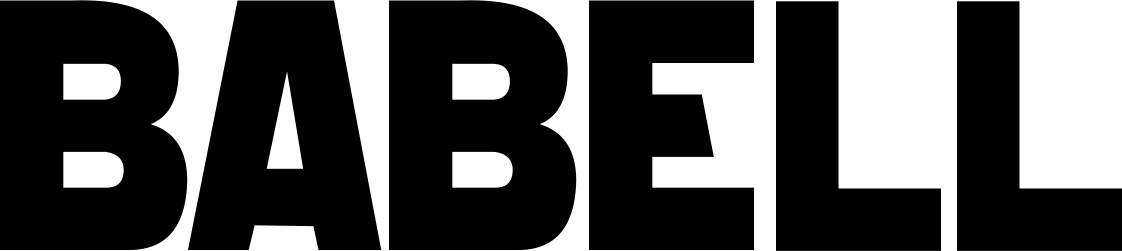
Babell Font
Babell font gives you the good news that if you use it in the titles of sports magazines and newspapers, you will have very high sales in your ads. This title font does not include lowercase letters and numbers, and you can only use it in designing bold and robust titles such as race and competition ads.
Fortunately, it is remarkable to say with this block and bold font; you can create any title text for posters and flyers.